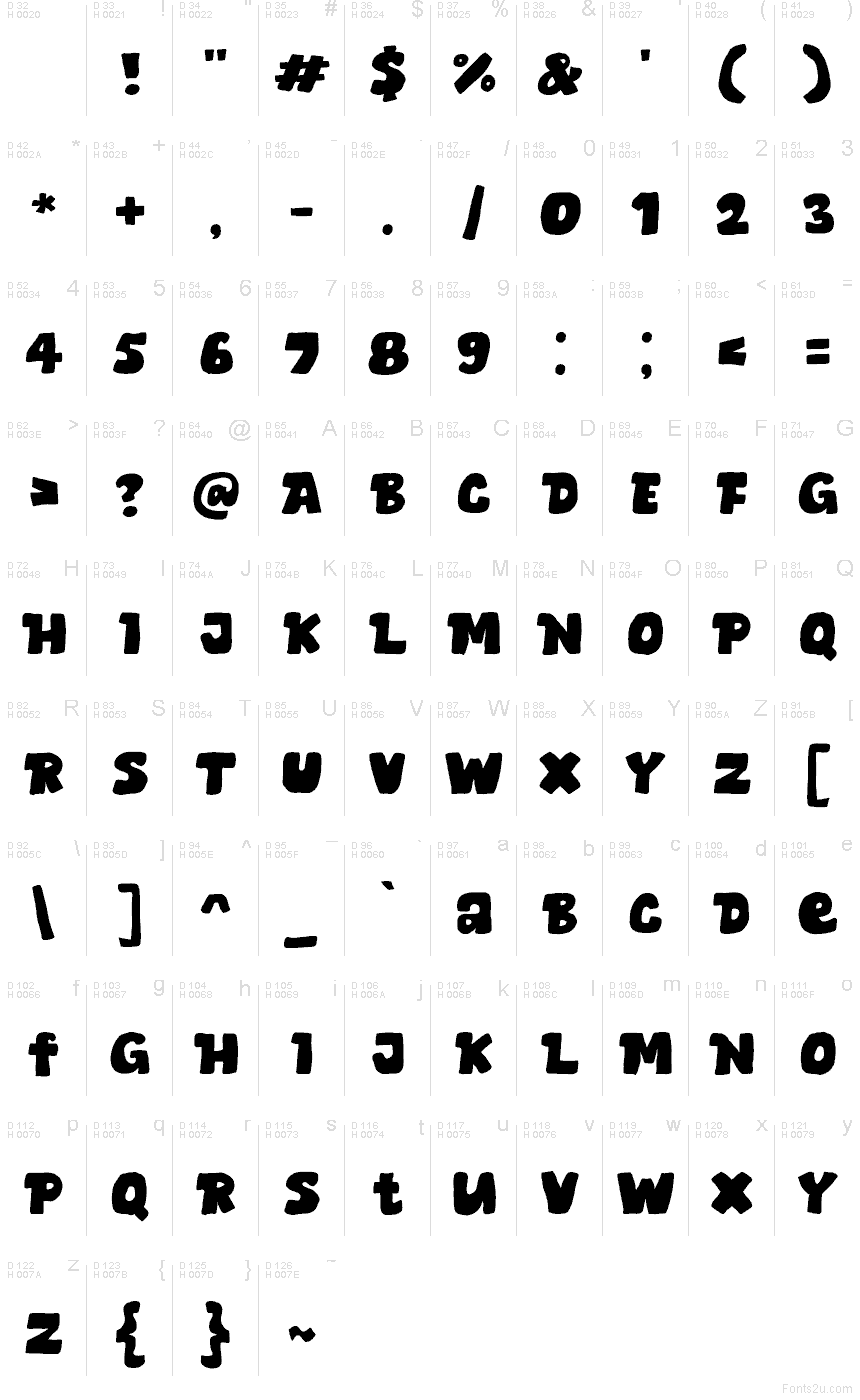
Braos Clash by MJType is a free cartoon display font with a rubbery, hand-drawn punch. The letters look big, soft, and slightly uneven, with rounded corners and chunky shapes that give the font a playful 1970s comic feel without turning sugary.
It fits youth branding, snack packaging, poster headlines, video thumbnails, title cards, and album or zine covers where a blunt, bouncy wordmark helps carry the mood. As a free font, it also makes sense for short logos, merch graphics, and social promos, since those swollen forms hold together best when the wording stays brief and bold.